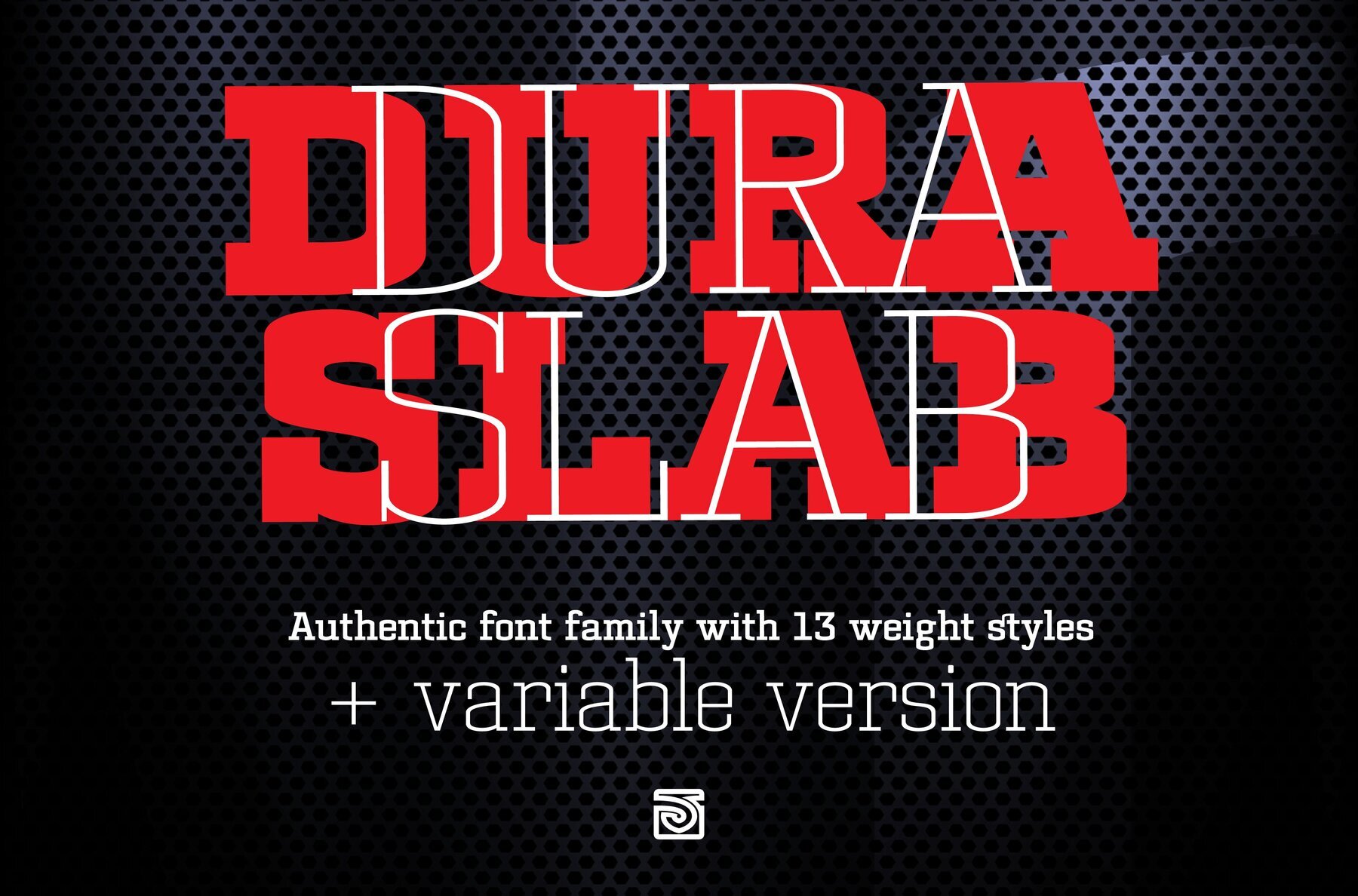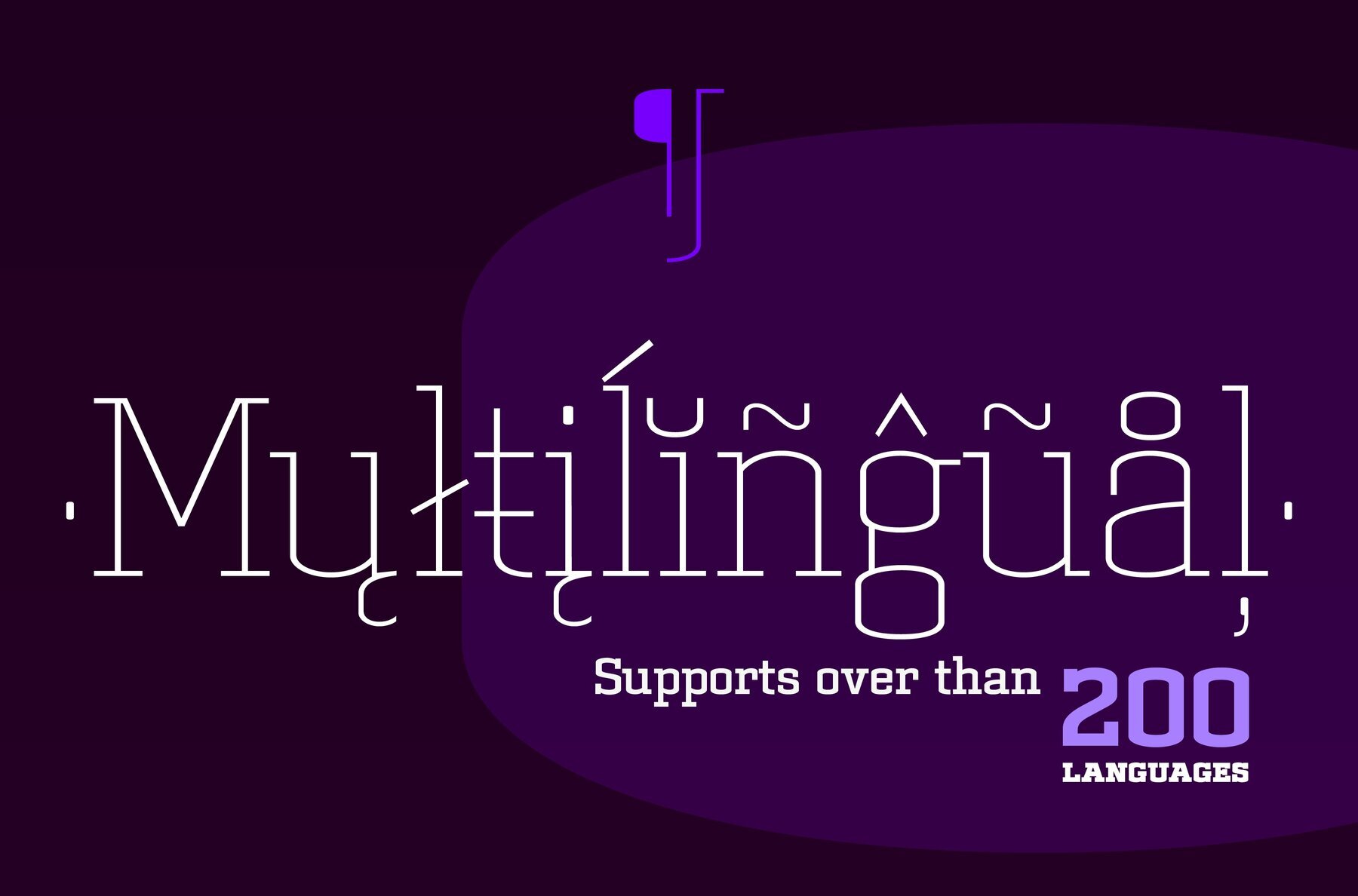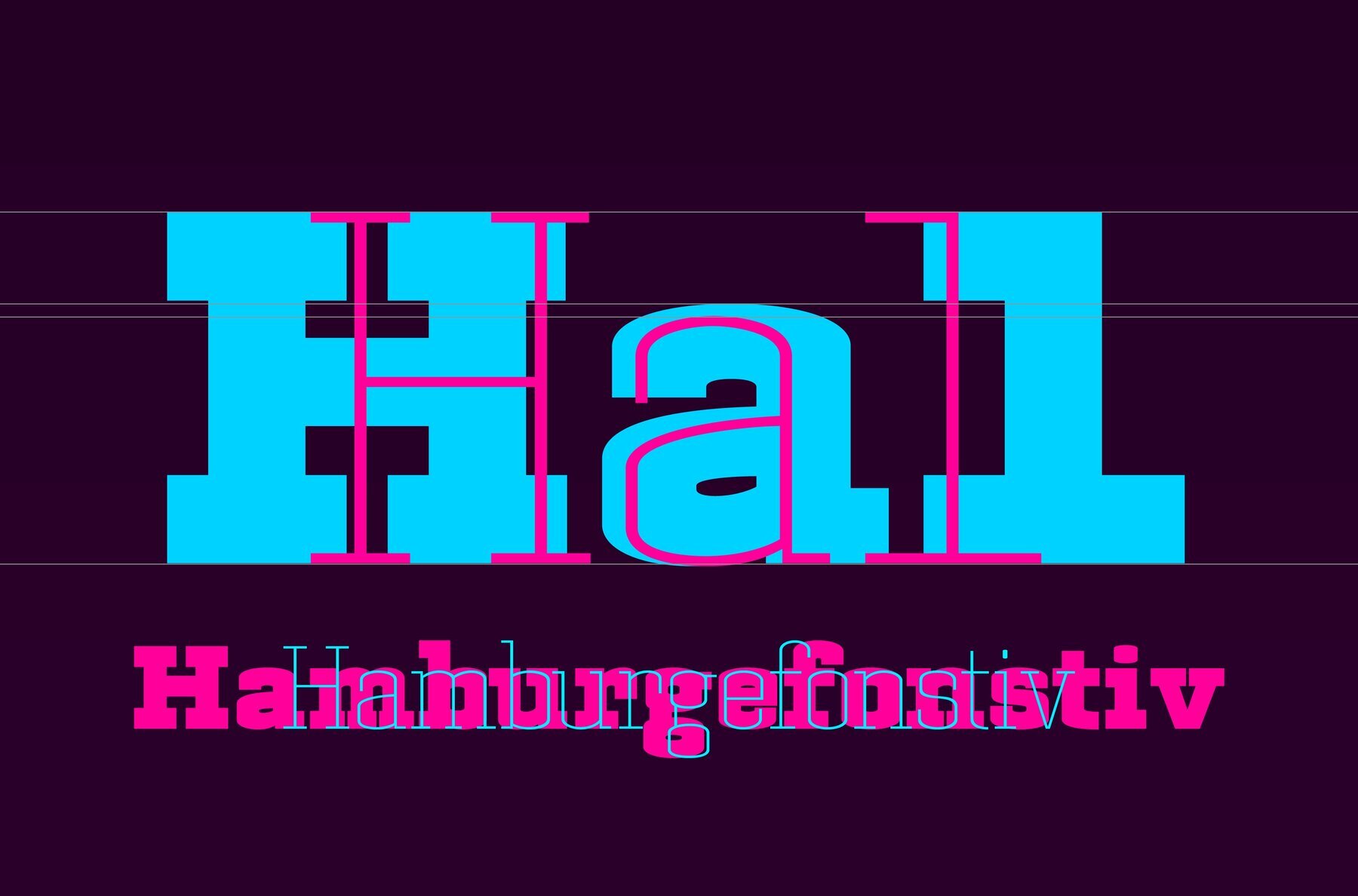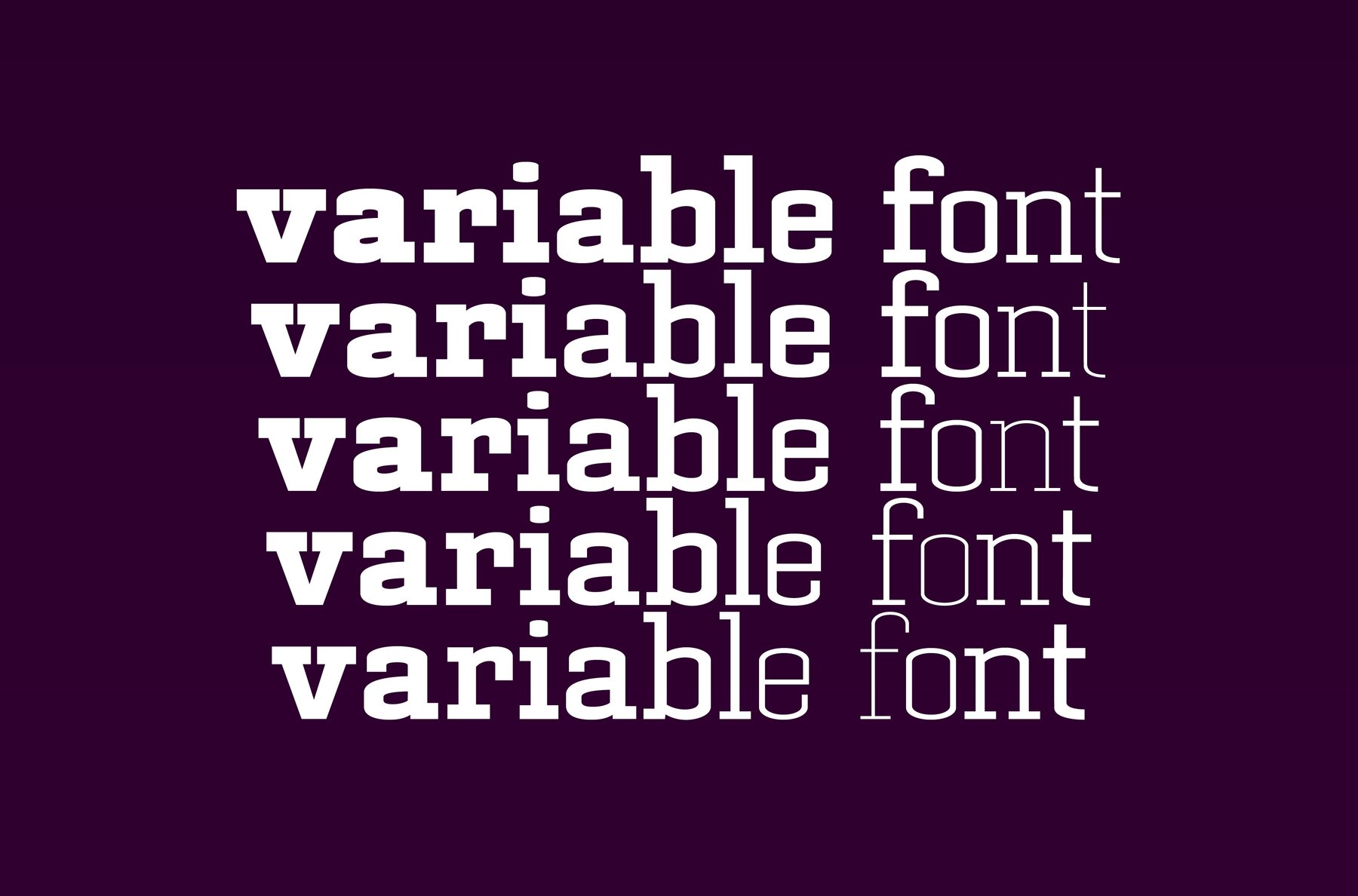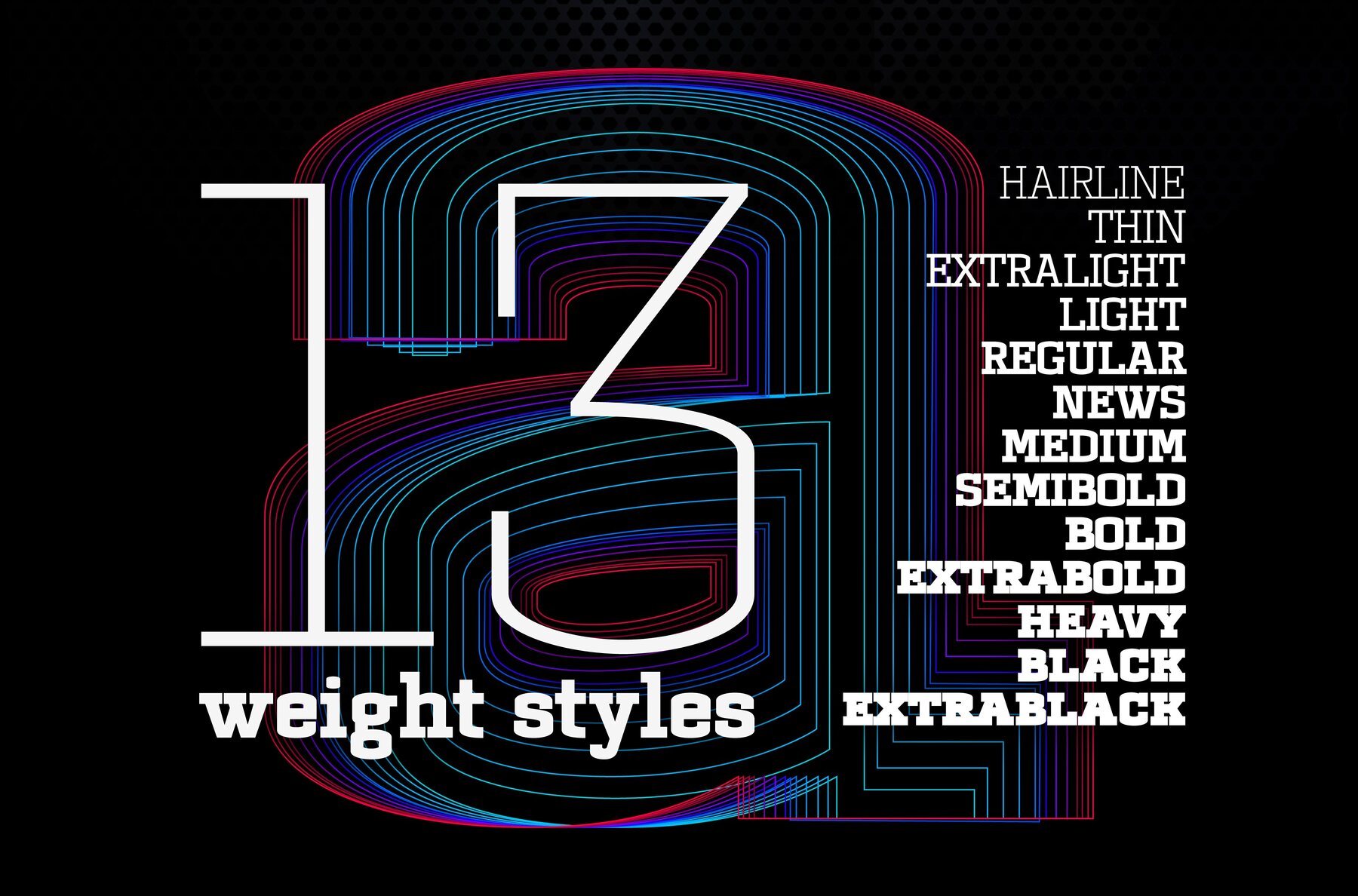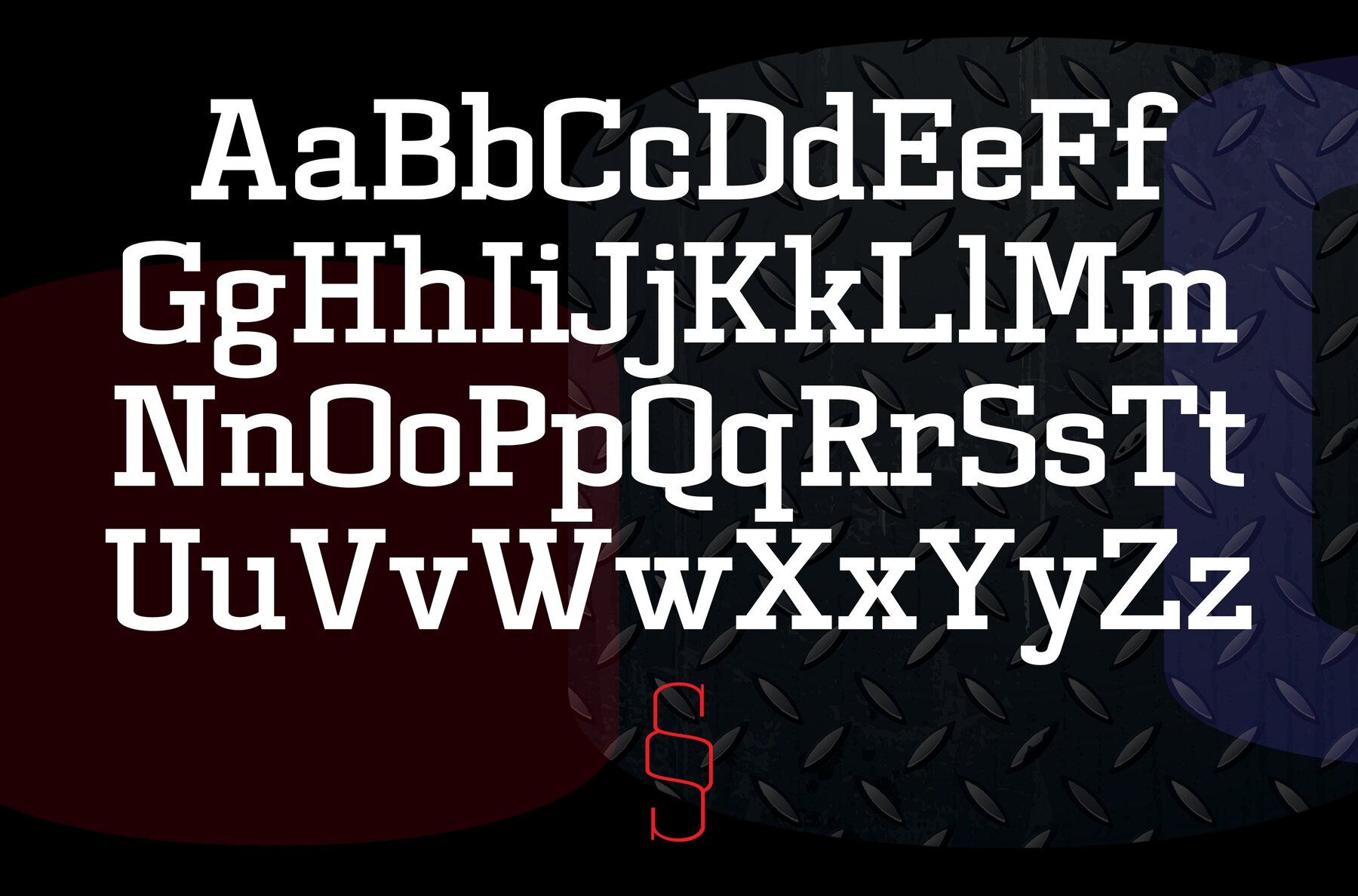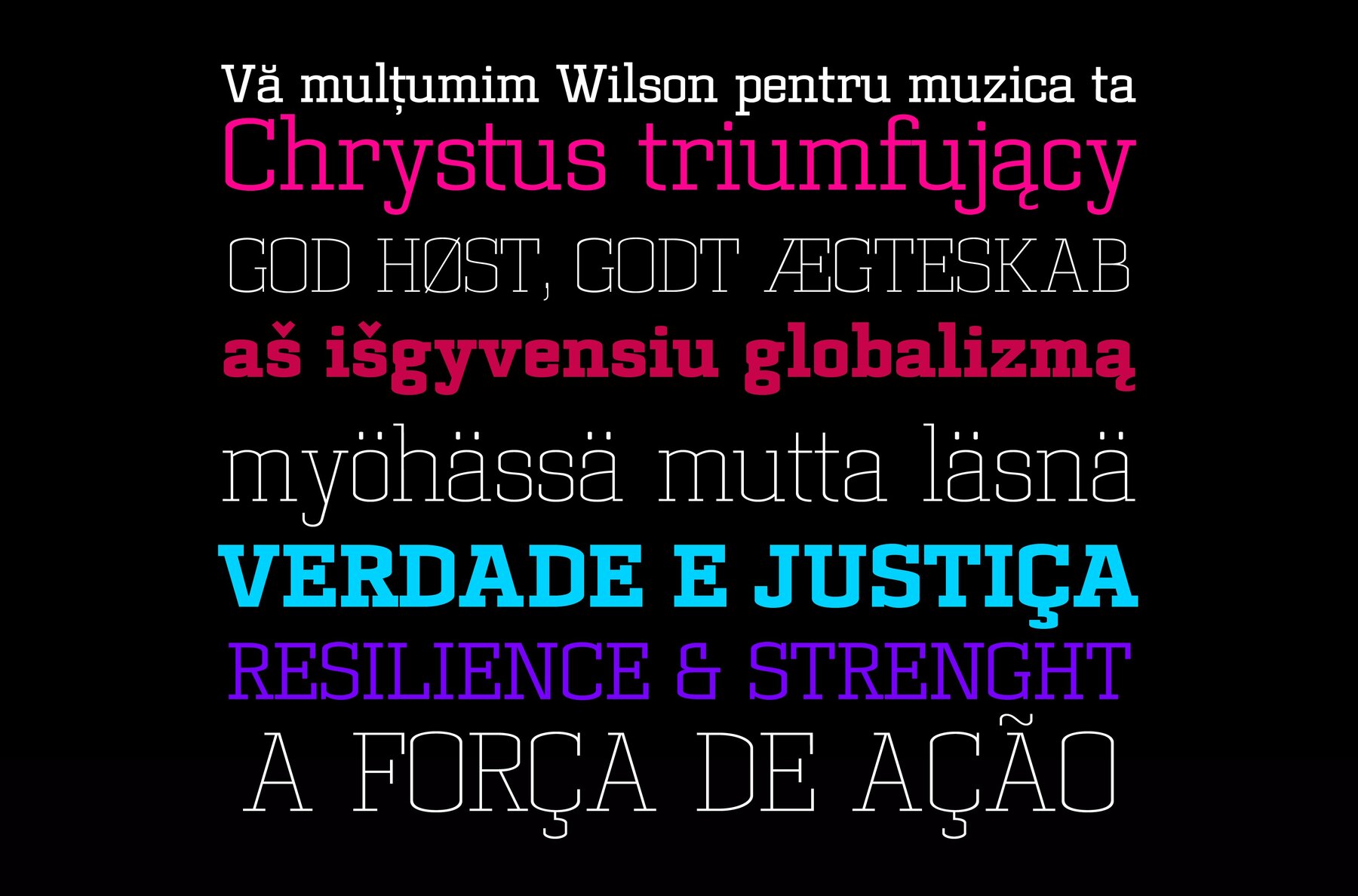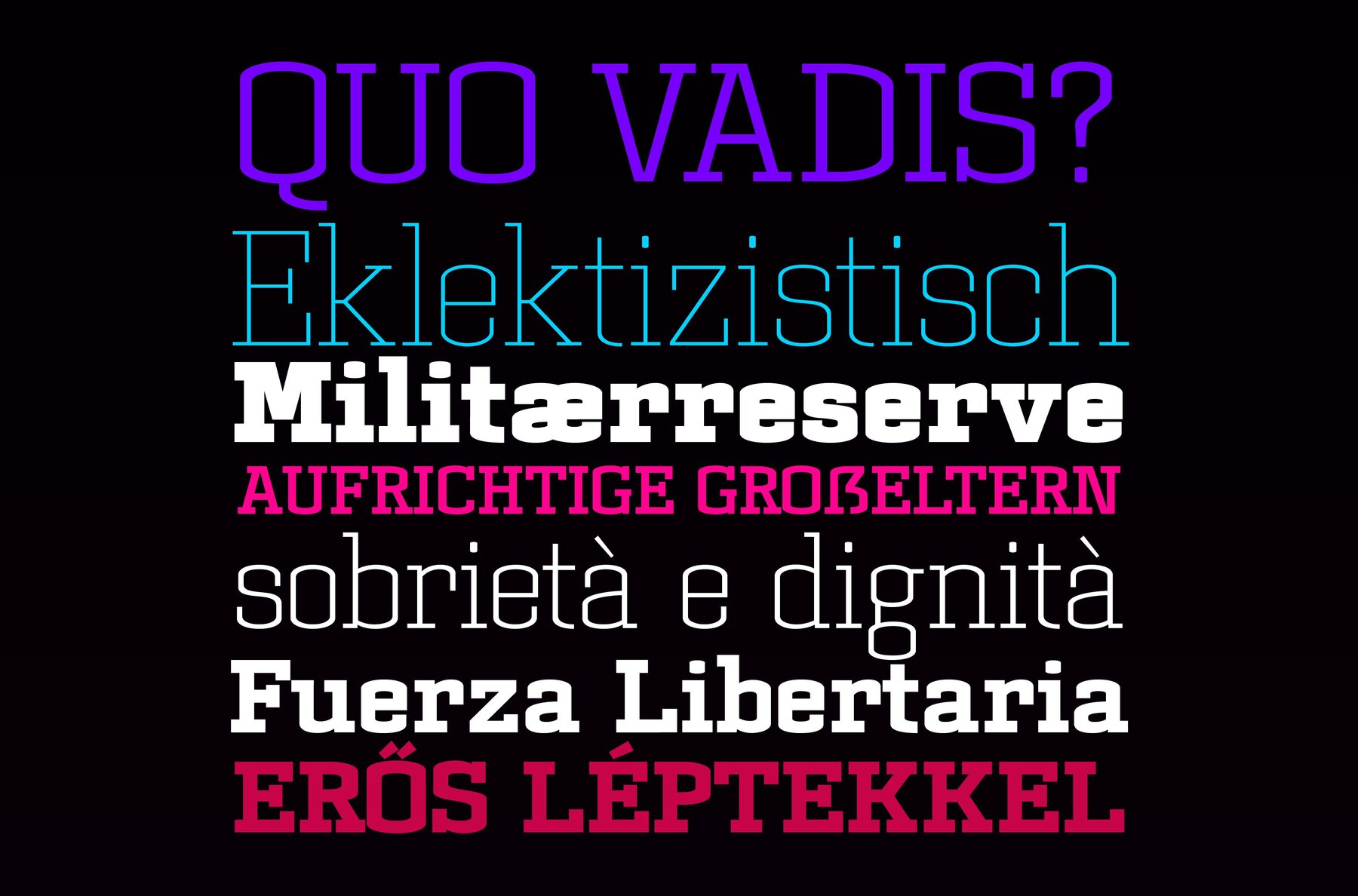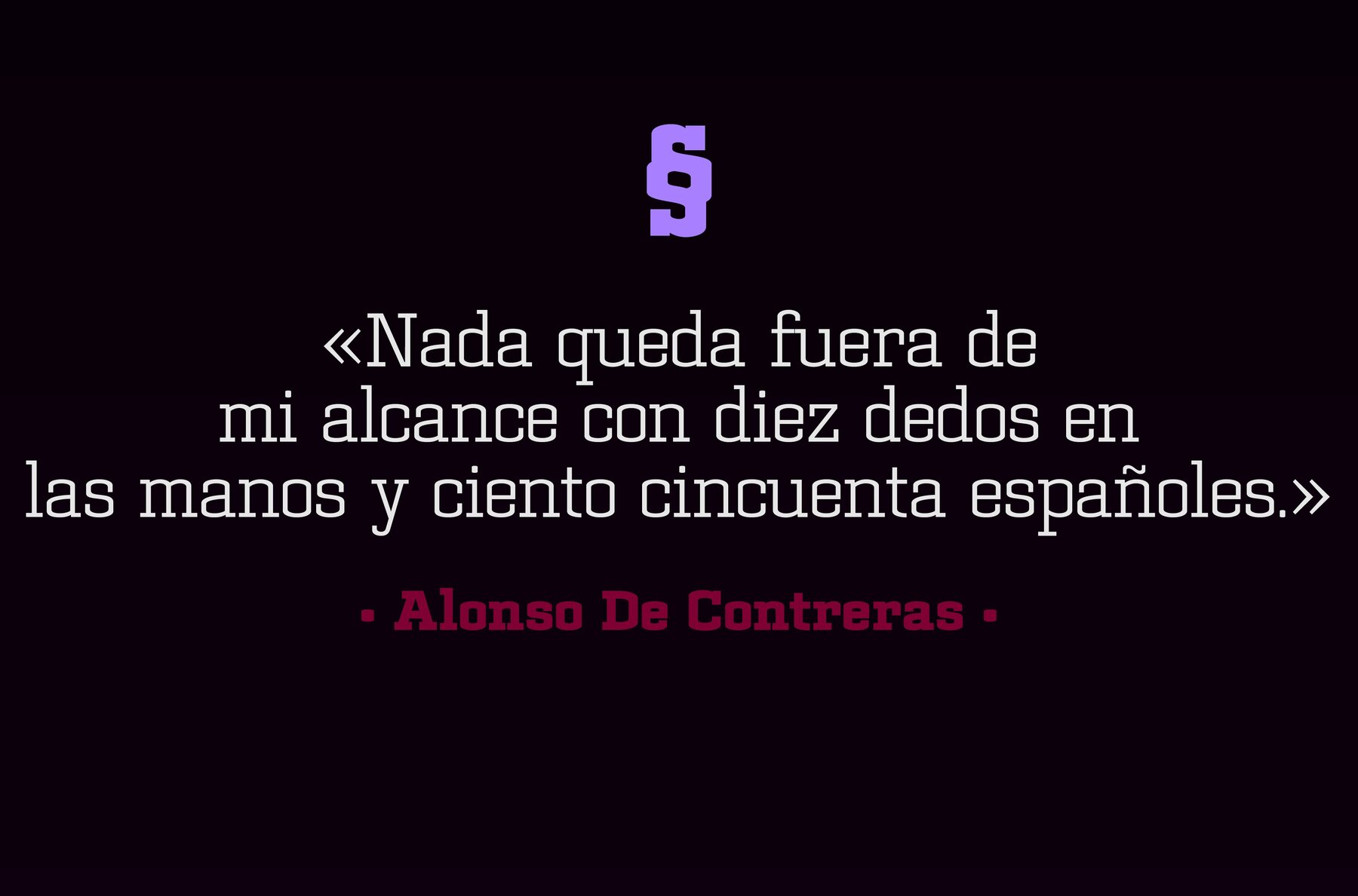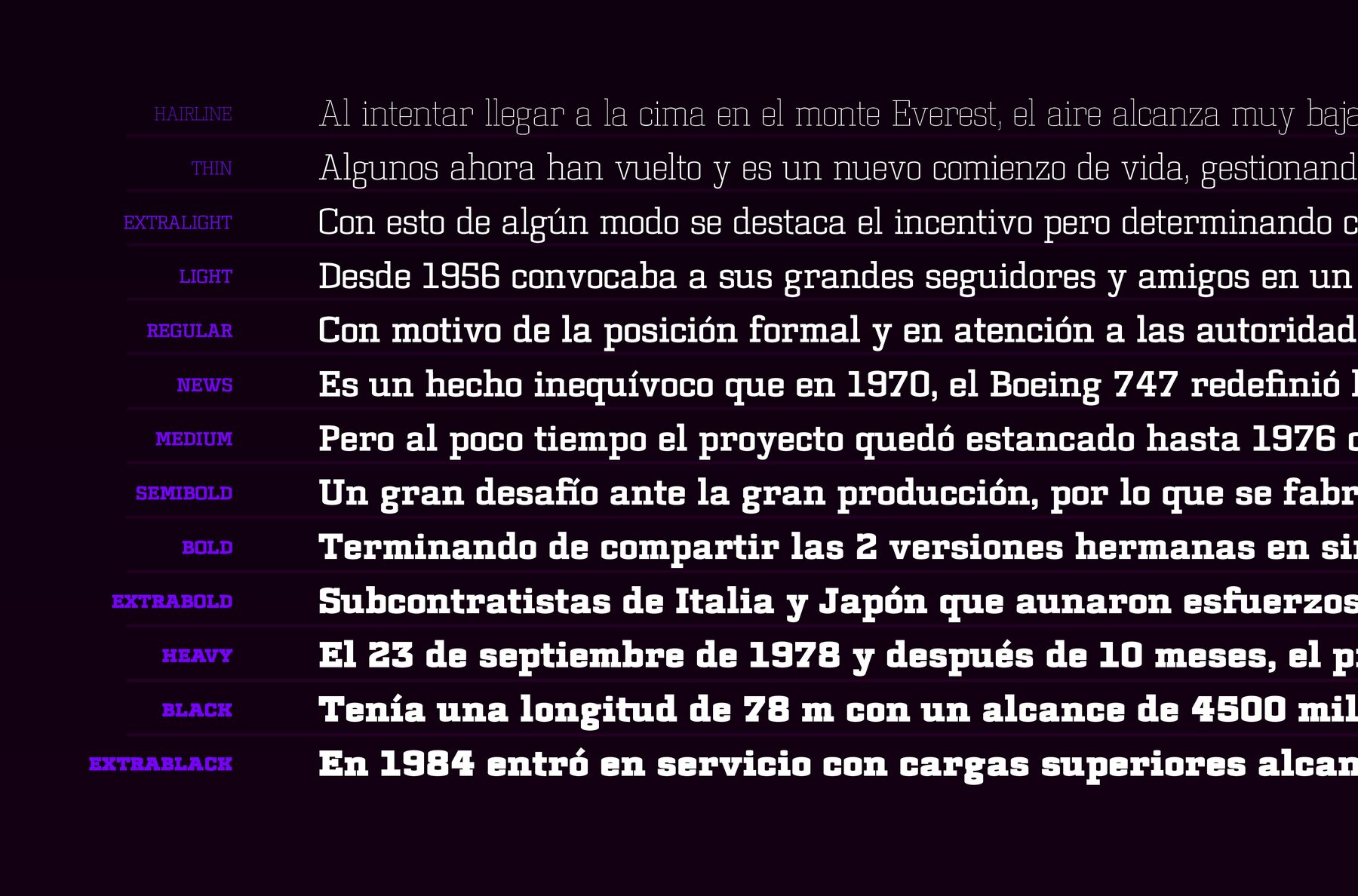
Dura Slab Font
What happens if a simple geometric shape generates a smooth but rough curve at the same time? Dura Slab is reminiscent of a Slab Serif font, with a fairly simple and modular geometry, ideal for headlines and short texts.
Dura Slab is a font family with variable weights integrated into a single file, or if you prefer in single weight versions. Includes several discretional ligatures and more alternates.